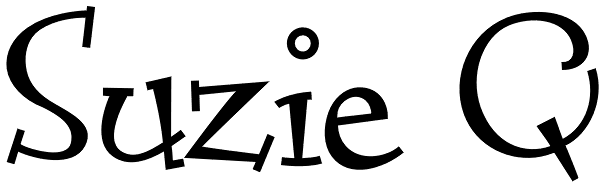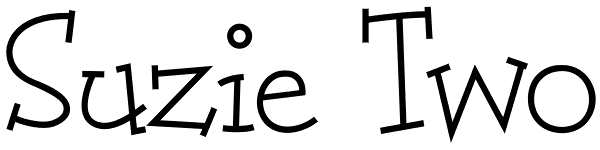
Suzie Q
The "Suzie-Q" dance became popular in 1937. It is basically a step done along with or within another dance form. Can be done as a solo, couple or group. Then, in the 60s and 70s "Suzie-Q", the song, became popular with Creedance Clearwater Revival...
Suzie Q
Suzie Skew
Suzie Two